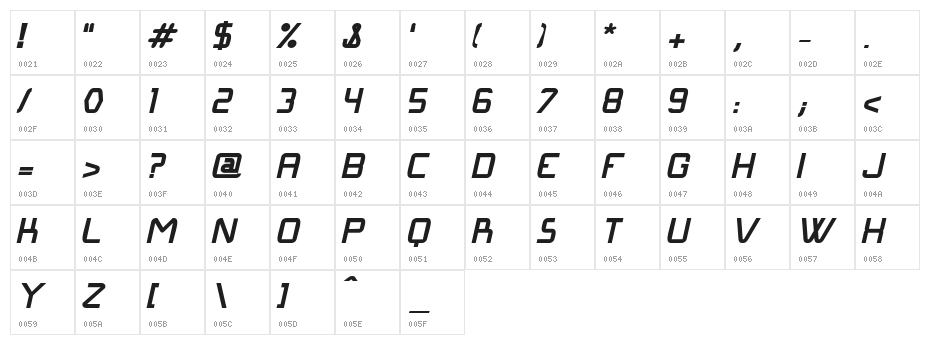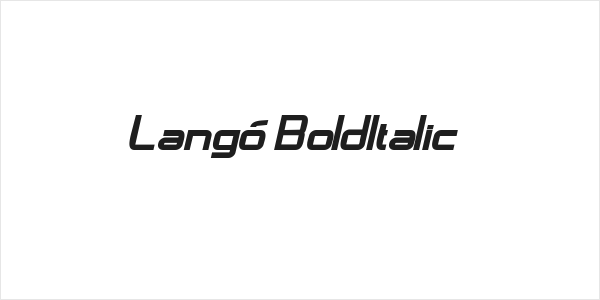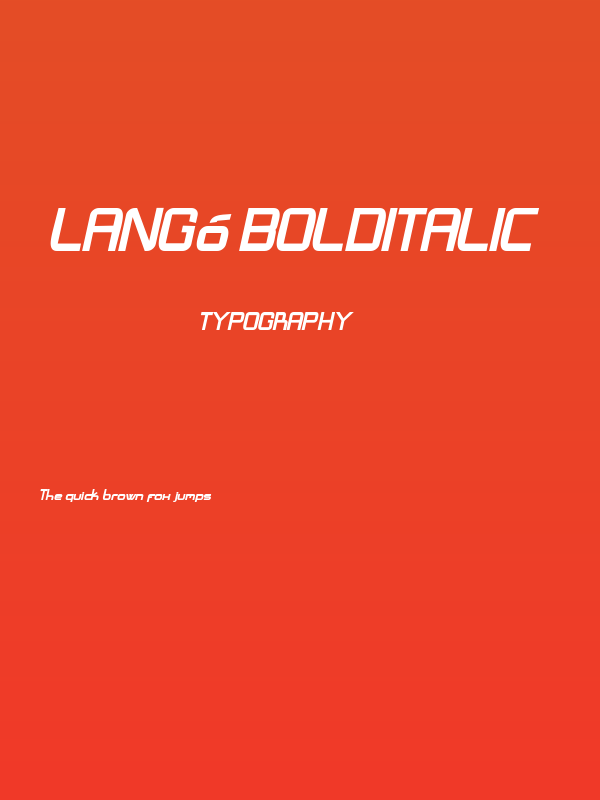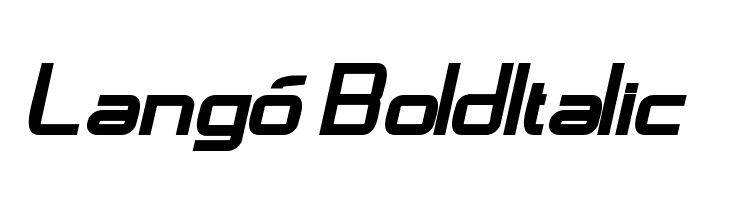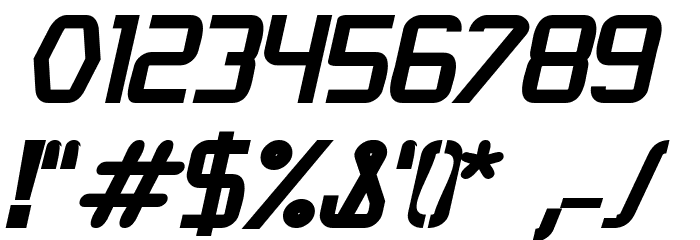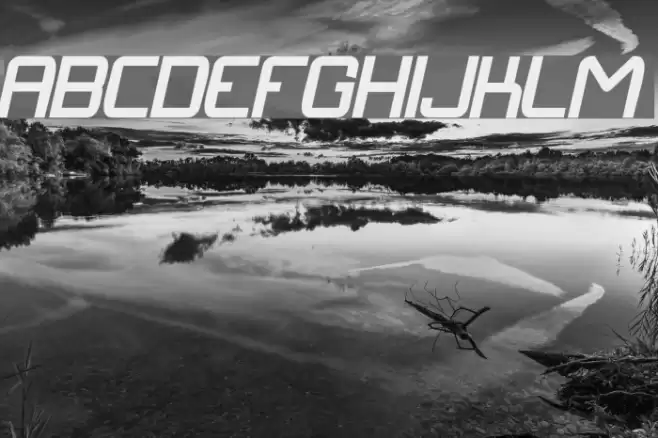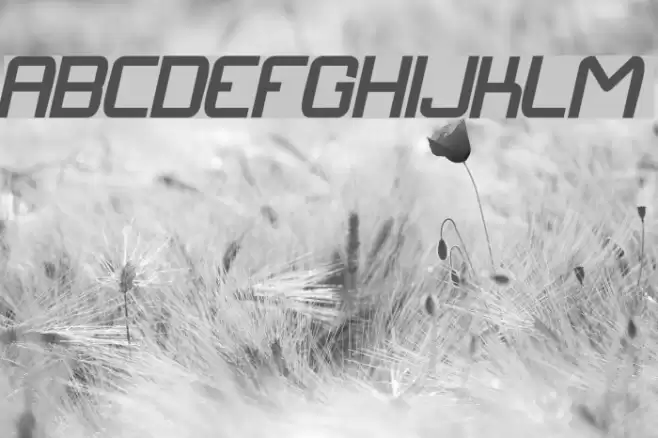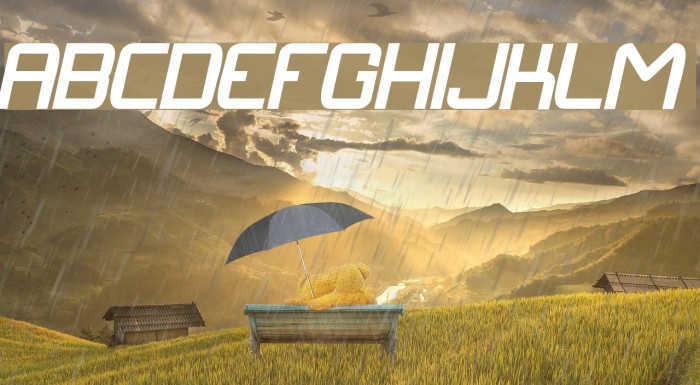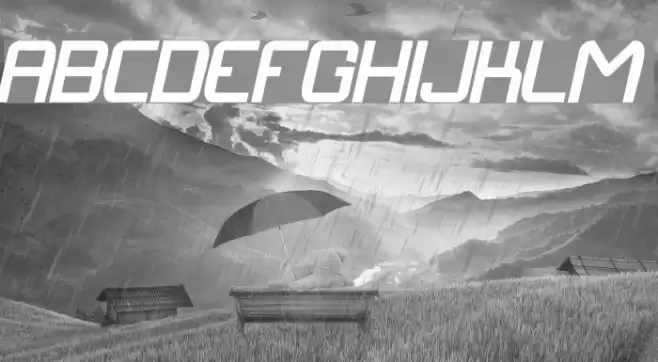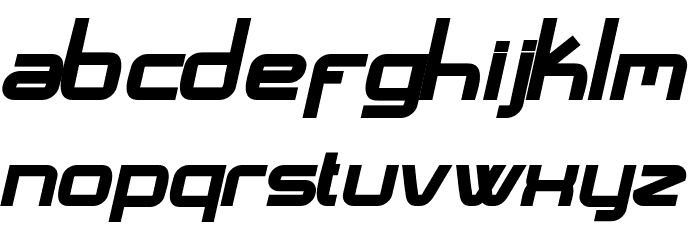
Langó BoldItalic Font
Langó BoldItalic Description
This font exhibits a bold and italicized style with a modern and dynamic appearance. The characters are slightly slanted, giving a sense of motion and energy. The uppercase and lowercase letters maintain a consistent geometric form, with sharp angles and clean lines. The numerals and special characters follow the same stylistic approach, ensuring uniformity across the typeface. The overall design is sleek and contemporary, making it suitable for projects that require a strong visual impact.